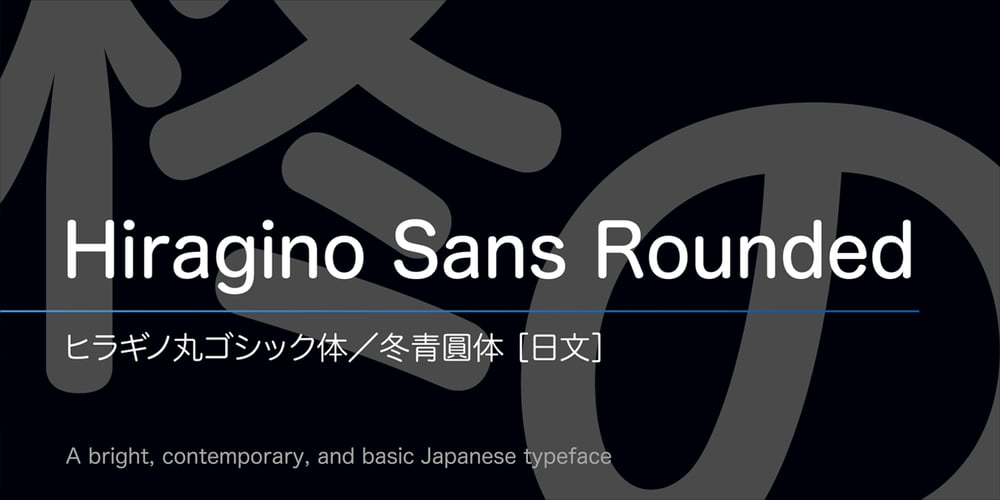
Hiragino Sans Rounded Font Family was designed by published by SCREEN Graphic Solutions. Hiragino Sans Rounded contains 1 styles and family package options. Hiragino Sans Rounded (Maru Gothic) is derived from the basic design of the Hiragino Sans (Kaku Gothic) with its wide counters and comfortable appearance. It features gentle typeface that provides graceful roundedness to the tips of all the strokes of a character. On the flip side of this gentle impression is the fact that every single element in the Hiragino Sans upon which this typeface is based has been carefully polished down in every respect in pursuit of an elegant roundness that makes it possible to handle carefully executed typesetting. That approach is clearly different from the general rounded typeface that makes full use of the body, and makes it possible to respond the requirement of professional typesetting. It is never-uninteresting design whose letterform is rooted in the traditions of traditional printing type. It is a font that of course can be used on its own and easily formatted just like Hiragino Sans while adding splendid coloring to the page. Furthermore, when used with other Hiragino fonts such as Hiragino Sans or Hiragino Serif (Mincho), the fact that all their designs are oriented on the same vector creates a multiplier effect. The user may be surprised at the sense of unity that cannot be experienced when combining it with other typefaces.